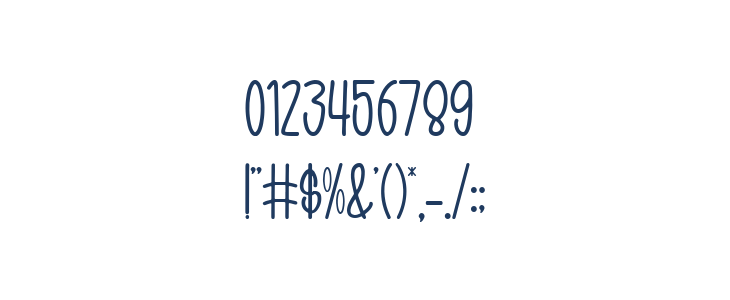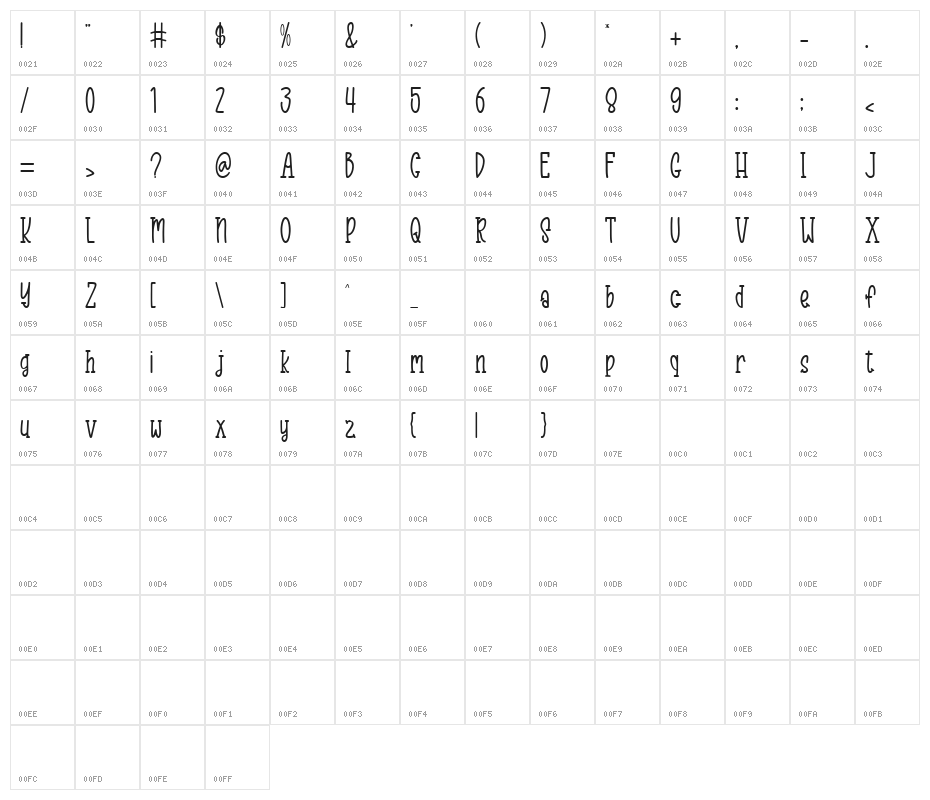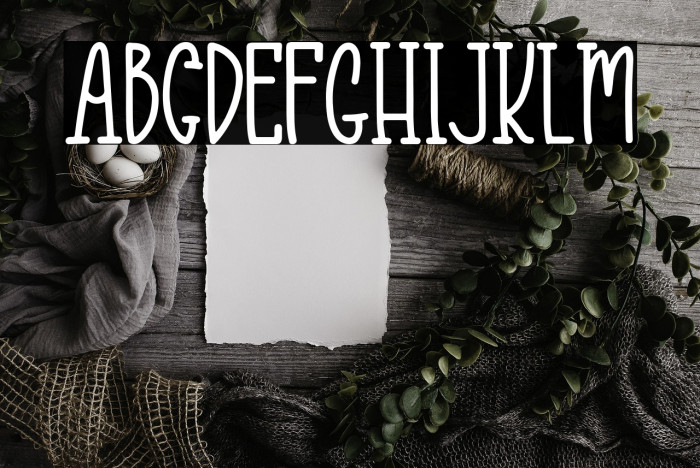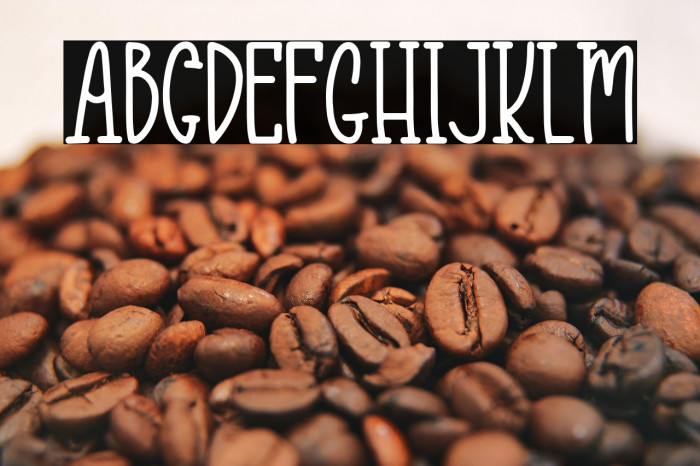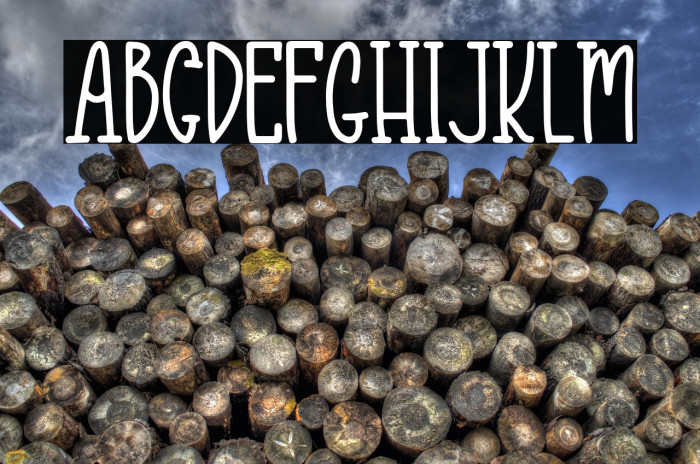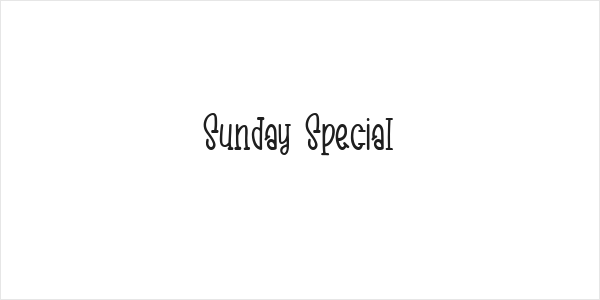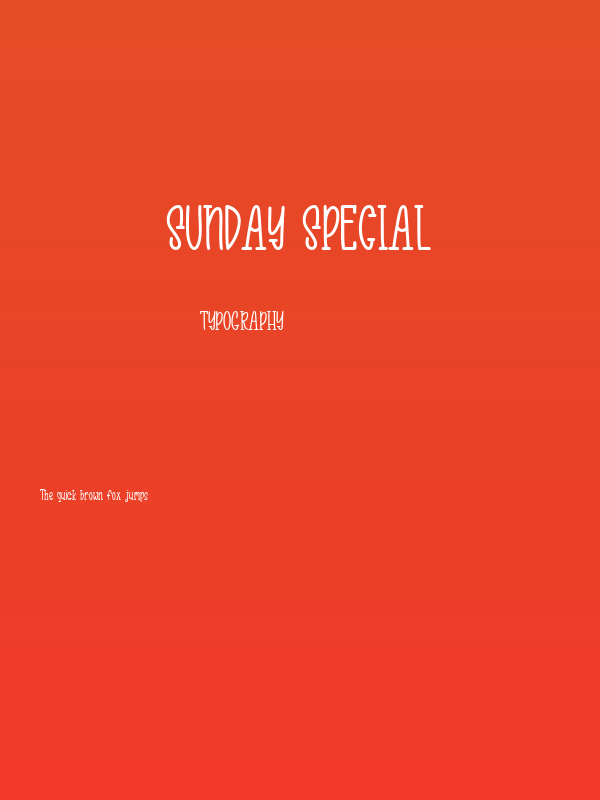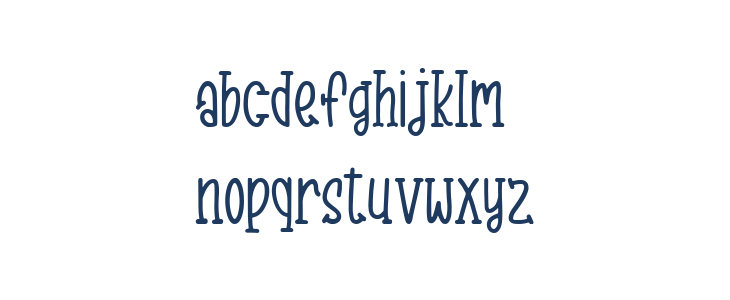
Sunday Special Font
Sunday Special Description
This font features a playful and whimsical design, characterized by its tall, narrow letters with a slight slant, giving it a casual and friendly appearance. The strokes are consistent in width, providing a uniform look across all characters. The uppercase letters are slightly taller than the lowercase, and the numerals are well-proportioned, making them easy to read. Special characters are included, maintaining the same playful style. This font is ideal for projects that require a touch of fun and creativity.
| Proposed Projects | Ideal for children's books, greeting cards, playful branding, and creative posters. |